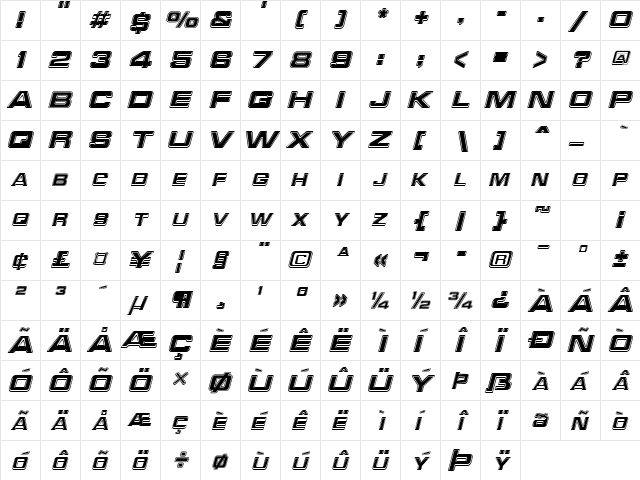
RedAlert Italic
Design Context for RedAlert Typeface
RedAlert is a composed and adaptable typeface that performs quietly and consistently across a wide range of design contexts. The slanted form adds forward momentum and visual energy.
Pro Tip: Try RedAlert for annotation and caption copy alongside an upright companion — the contrast in angle creates a dynamic but ordered typographic system.